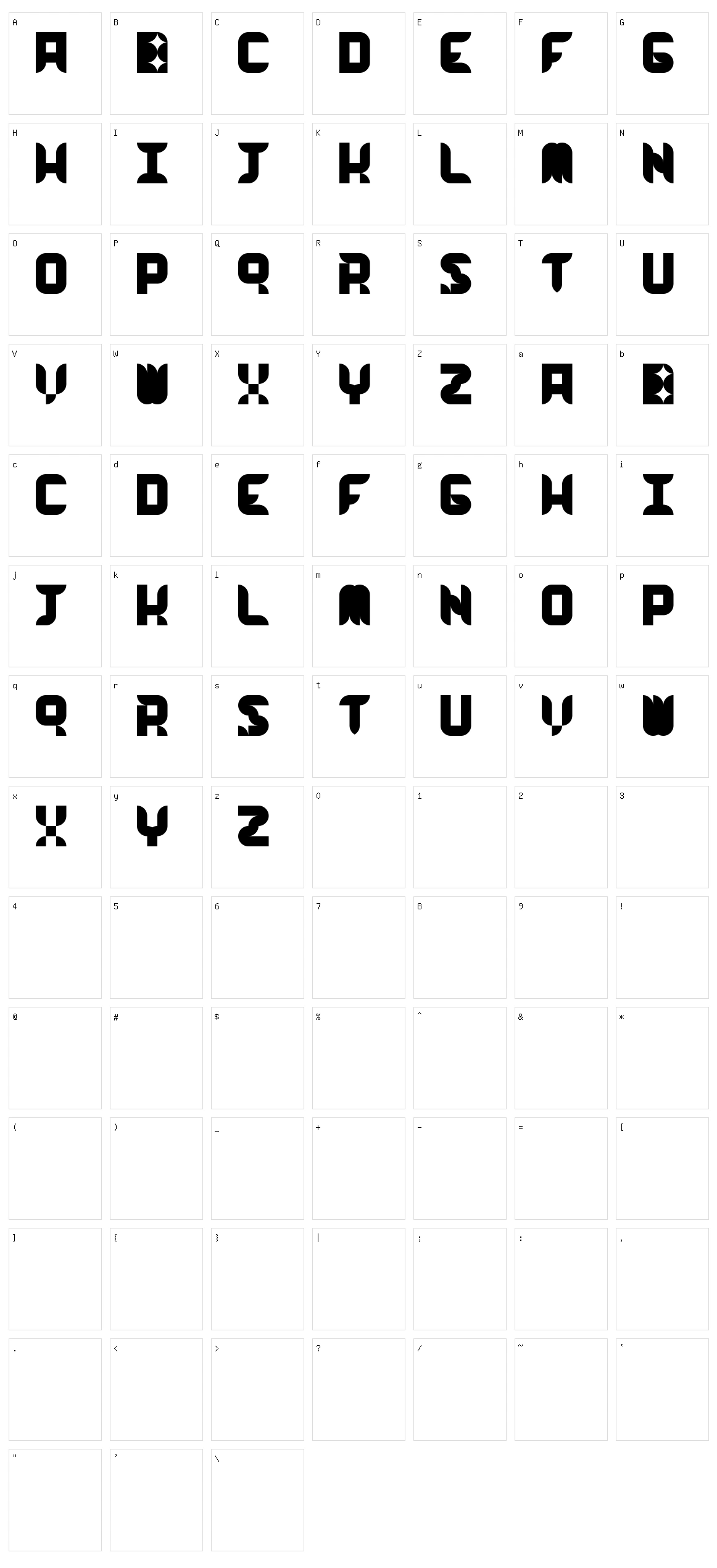
Work Work Work
Designed by: Mathspy Terabithian
This is my very first font, and I have created it FULLY. But the idea itself is not mine, it's Brent Couchman's idea.
From this picture here
It looked way too good that I had to make it a font, and here it is!
P.S: There was no better name than how it all start. WorkWorkWork.